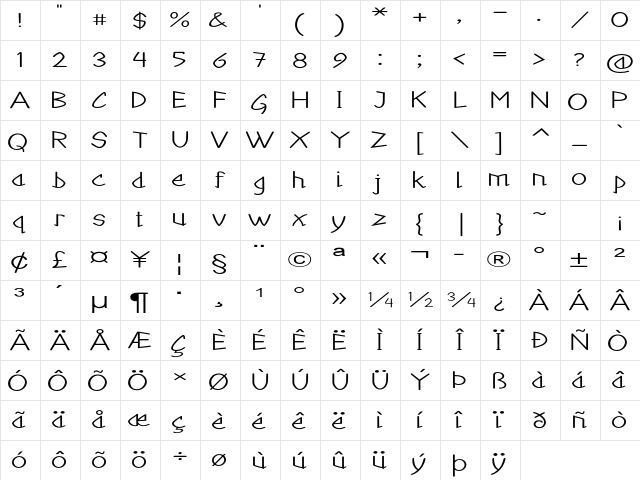
Burpal Extra-expanded Regular
Style: Extra-expanded Regular
Burpal Family
Burpal Extra-expanded Regular
Design Context for Burpal
Burpal is a composed and adaptable typeface that performs quietly and consistently across a wide range of design contexts.